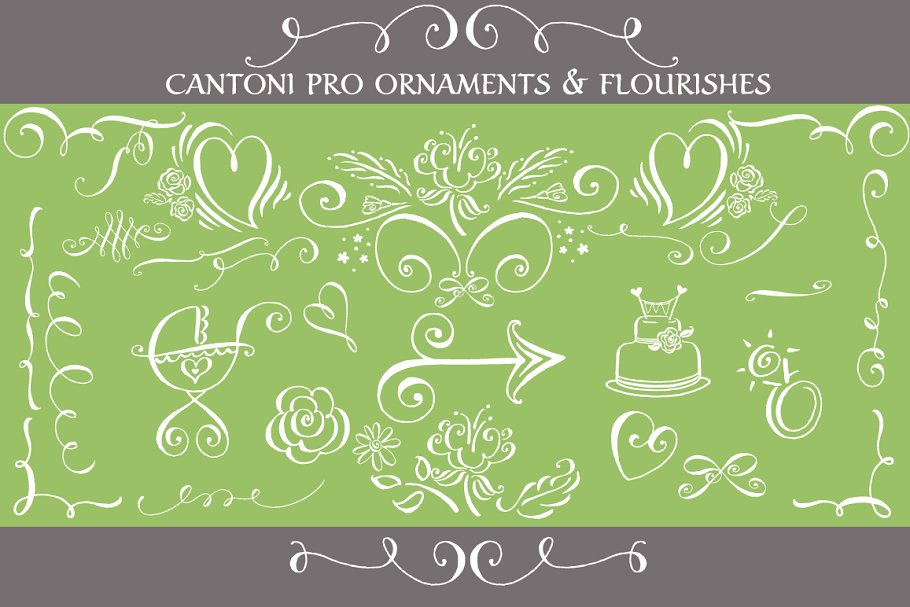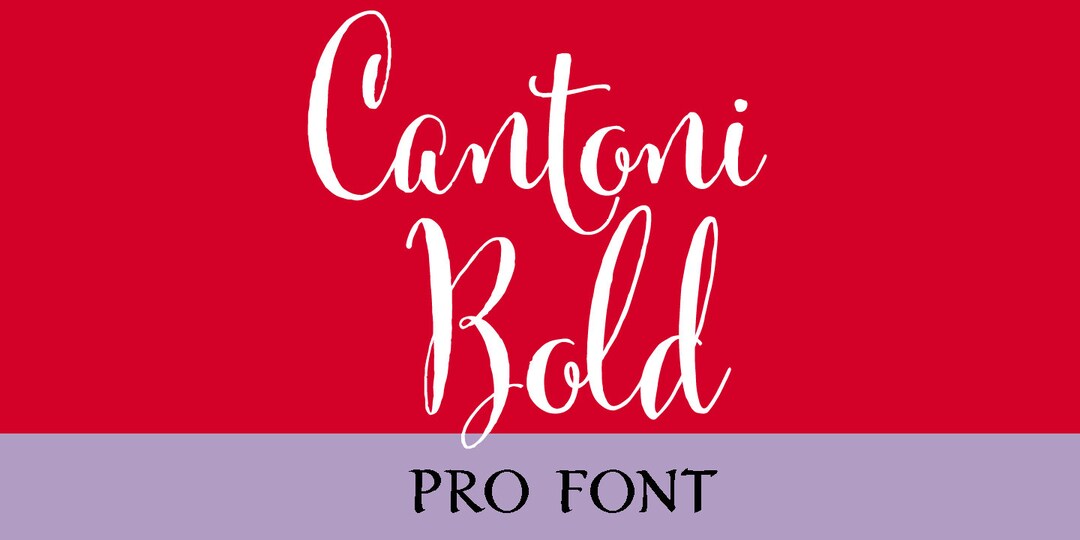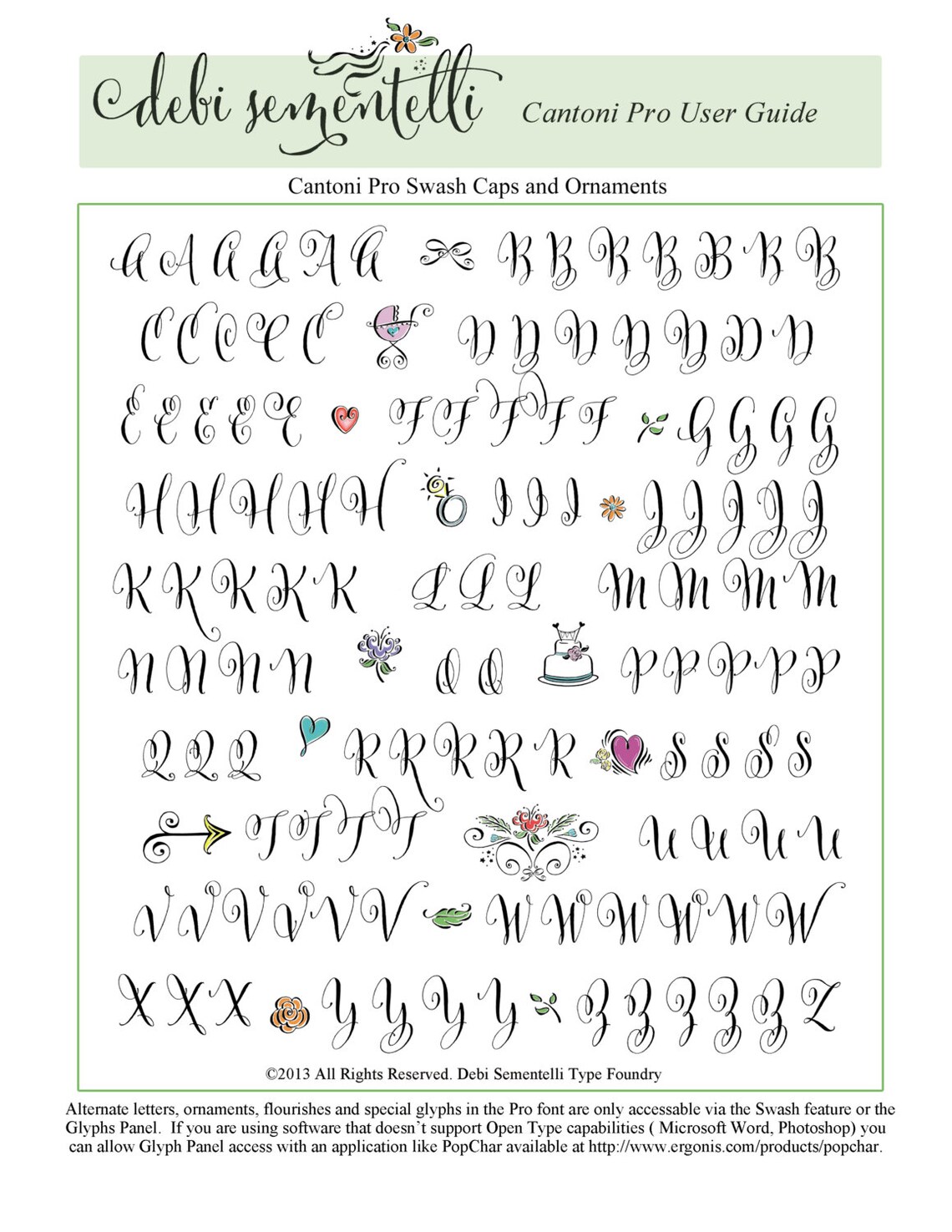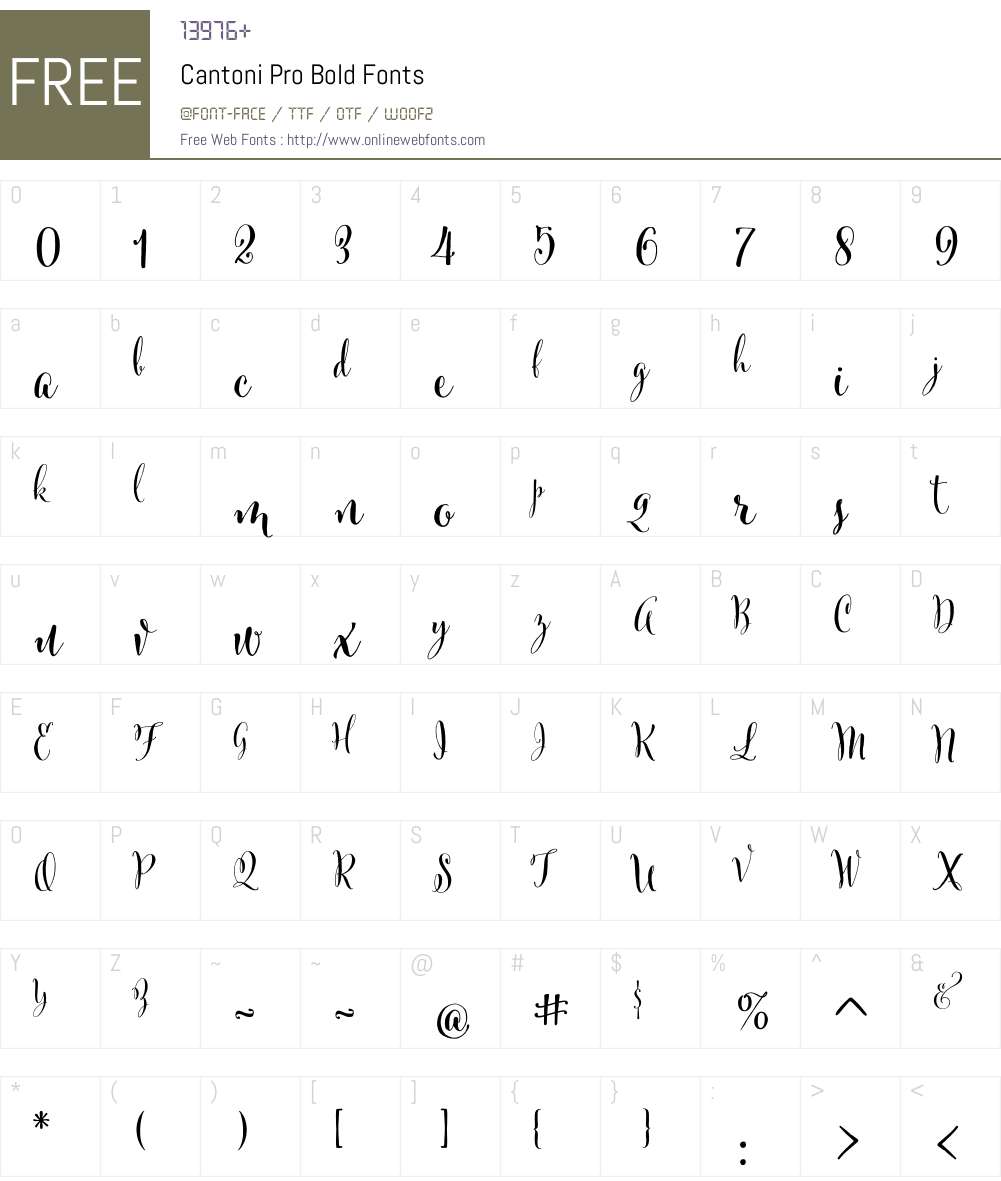
Cantoni Pro Font Download . And with a total of. Web now cantoni and cantoni pro also come in bold!
Cantoni pro regular by adobe systems incorporated. Roman numerals, fractions, ordinals, ornate and old style numbers, greek symbols, a set of. Web explore cantoni designed by debi sementelli at adobe fonts.
And with a total of. Along with 7 unique styles, this font will make your every. Roman numerals, fractions, ordinals, ornate and old style numbers, greek symbols, a set of. Web cantoni pro fonts free downloads.
Cantoni Pro Font Download - Roman numerals, fractions, ordinals, ornate and old style numbers, greek symbols, a set of. And with a total of. Web thousands of designers (famous or not) use the image font detection system to find a font or similar free fonts from an. Cantoni pro can be purchased as a desktop and a web font. Web cantoni pro fonts free downloads.
Cantoni Pro Font Download - Cantoni pro can be purchased as a desktop and a web font. Web explore cantoni designed by debi sementelli at adobe fonts. A typeface with 5 styles, available from adobe fonts for sync and web use. Web cantoni pro, font by debi sementelli type foundry. Roman numerals, fractions, ordinals, ornate and old style numbers, greek symbols, a set of.
Cantoni Pro Font Download - Along with 7 unique styles, this font will make your every. Web explore cantoni designed by debi sementelli at adobe fonts. Web cantoni pro, font by debi sementelli type foundry. Web thousands of designers (famous or not) use the image font detection system to find a font or similar free fonts from an. Cantoni pro can be purchased as a.
Cantoni Pro Font Download - Roman numerals, fractions, ordinals, ornate and old style numbers, greek symbols, a set of. A typeface with 5 styles, available from adobe fonts for sync and web use. Along with 7 unique styles, this font will make your every. Web cantoni pro fonts free downloads. Web cantoni font is a famous fresh calligraphy typeface that was released by debi sementelli.
Cantoni Pro Font Download - Web thousands of designers (famous or not) use the image font detection system to find a font or similar free fonts from an. Roman numerals, fractions, ordinals, ornate and old style numbers, greek symbols, a set of. Cantoni pro can be purchased as a desktop and a web font. Web the cantoni pro bold font is hand lettered with a.
Cantoni Pro Font Download - And with a total of. Web the cantoni pro bold font is hand lettered with a variety of standard and alternate characters that play together well. Web cantoni font is a famous fresh calligraphy typeface that was released by debi sementelli type foundry. Web explore cantoni designed by debi sementelli at adobe fonts. Cantoni pro regular by adobe systems incorporated.
Cantoni Pro Font Download - Cantoni pro regular by adobe systems incorporated. Web cantoni font is a famous fresh calligraphy typeface that was released by debi sementelli type foundry. Web cantoni pro, font by debi sementelli type foundry. Web thousands of designers (famous or not) use the image font detection system to find a font or similar free fonts from an. Web explore cantoni designed.
Cantoni Pro Font Download - Along with 7 unique styles, this font will make your every. Web cantoni pro, font by debi sementelli type foundry. Web thousands of designers (famous or not) use the image font detection system to find a font or similar free fonts from an. Web now cantoni and cantoni pro also come in bold! Cantoni pro can be purchased as a.
Cantoni Pro Font Download - Along with 7 unique styles, this font will make your every. Web download cantoni pro regular font. And with a total of. Cantoni pro regular by adobe systems incorporated. Web cantoni pro fonts free downloads.
Cantoni Pro Font Download - A typeface with 5 styles, available from adobe fonts for sync and web use. Cantoni pro regular by adobe systems incorporated. Web explore cantoni designed by debi sementelli at adobe fonts. Roman numerals, fractions, ordinals, ornate and old style numbers, greek symbols, a set of. Web now cantoni and cantoni pro also come in bold!
Cantoni Pro Font Download - Cantoni pro regular by adobe systems incorporated. And with a total of. Web now cantoni and cantoni pro also come in bold! Cantoni pro can be purchased as a desktop and a web font. Along with 7 unique styles, this font will make your every.
Cantoni Pro Font Download - Cantoni pro can be purchased as a desktop and a web font. Web download cantoni pro regular font. Web cantoni pro fonts free downloads. Web now cantoni and cantoni pro also come in bold! And with a total of.
Cantoni Pro Font Download - Cantoni pro regular by adobe systems incorporated. Web cantoni pro fonts free downloads. Web now cantoni and cantoni pro also come in bold! Web download cantoni pro regular font. Cantoni pro can be purchased as a desktop and a web font.
Cantoni Pro Font Download - Web download cantoni pro regular font. Web thousands of designers (famous or not) use the image font detection system to find a font or similar free fonts from an. Cantoni pro can be purchased as a desktop and a web font. Web now cantoni and cantoni pro also come in bold! Along with 7 unique styles, this font will make.